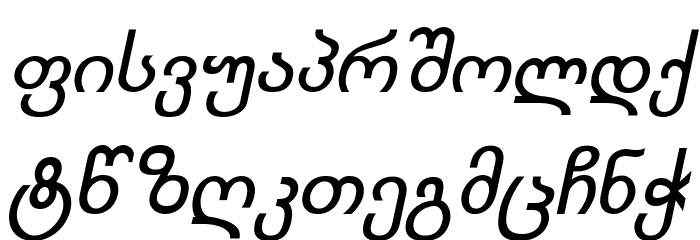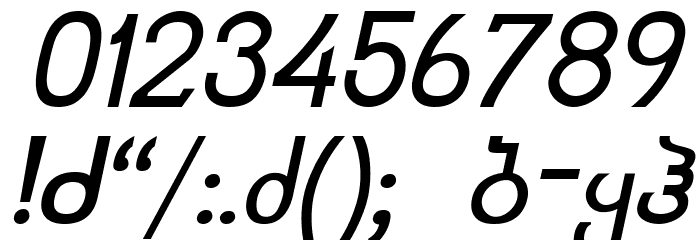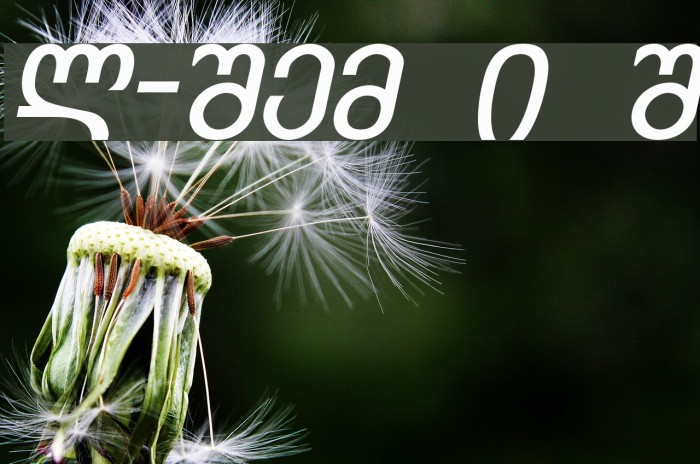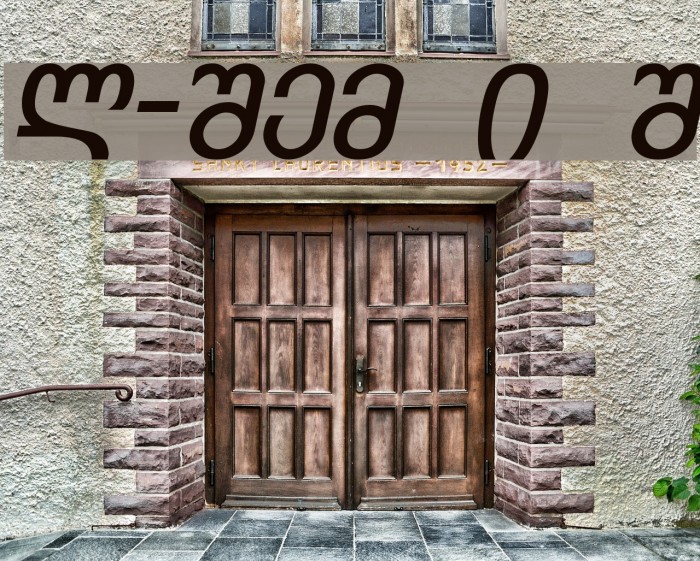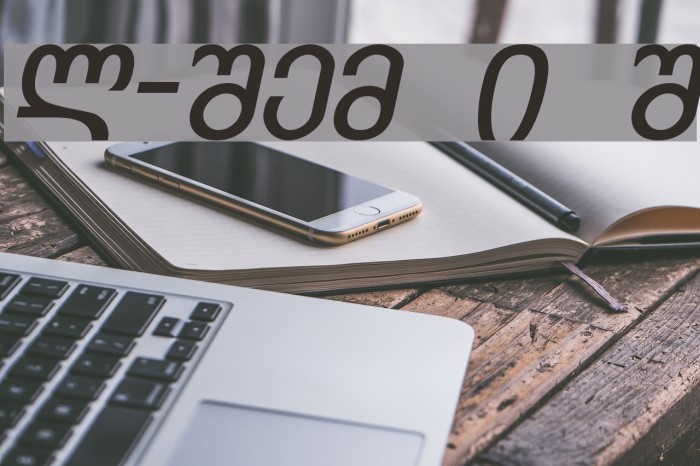
Kolkhety-ITV Bold Italic Font
This font features a bold and italicized style with a distinct flair, characterized by its flowing, cursive-like strokes that give it a dynamic and elegant appearance. The letters are well-rounded with smooth curves, providing a sense of movement and fluidity. The numerals and special characters maintain the same stylistic approach, ensuring consistency throughout. The overall design is both sophisticated and approachable, making it suitable for a variety of creative applications.
A bold, italicized font with flowing, cursive-like strokes and elegant curves.
- Proposed Projects: Ideal for branding, invitations, greeting cards, and decorative headlines.
- Use Case: Logos, Invitations, Decorative Headlines